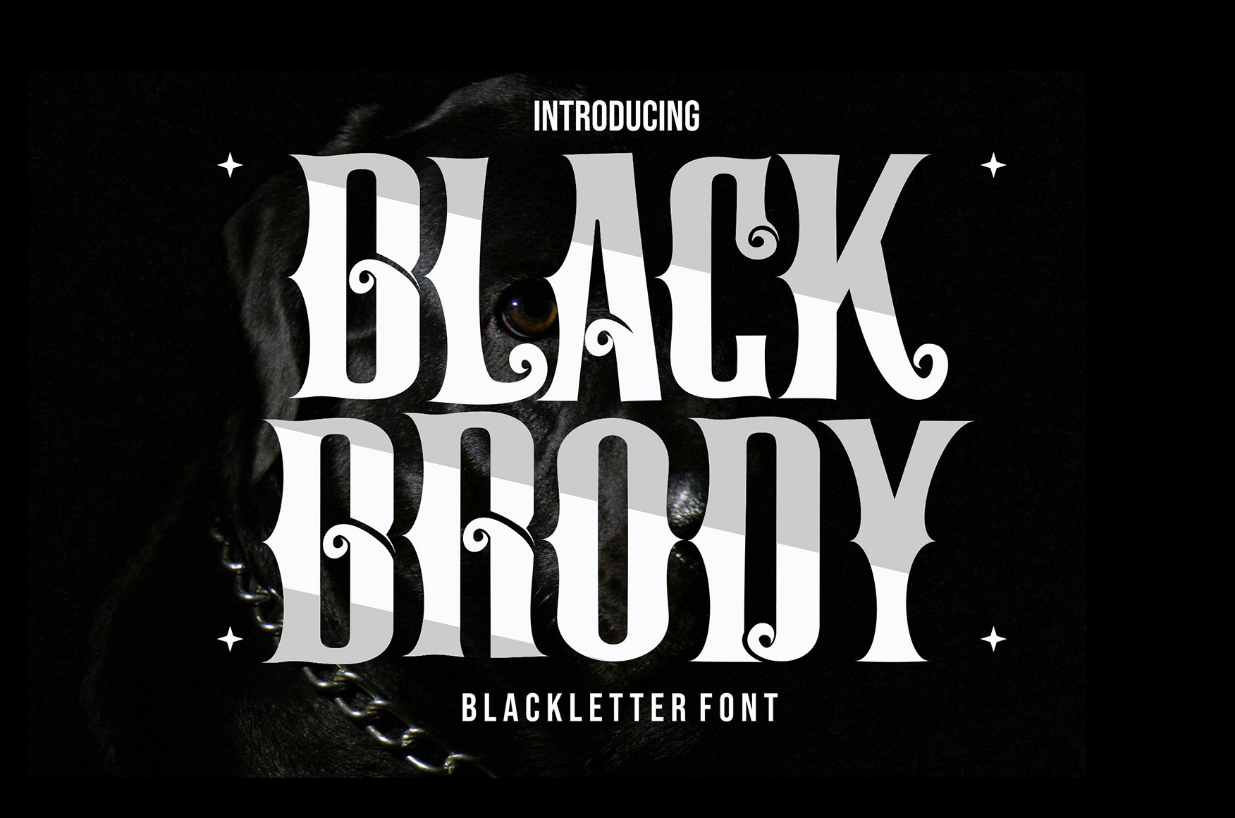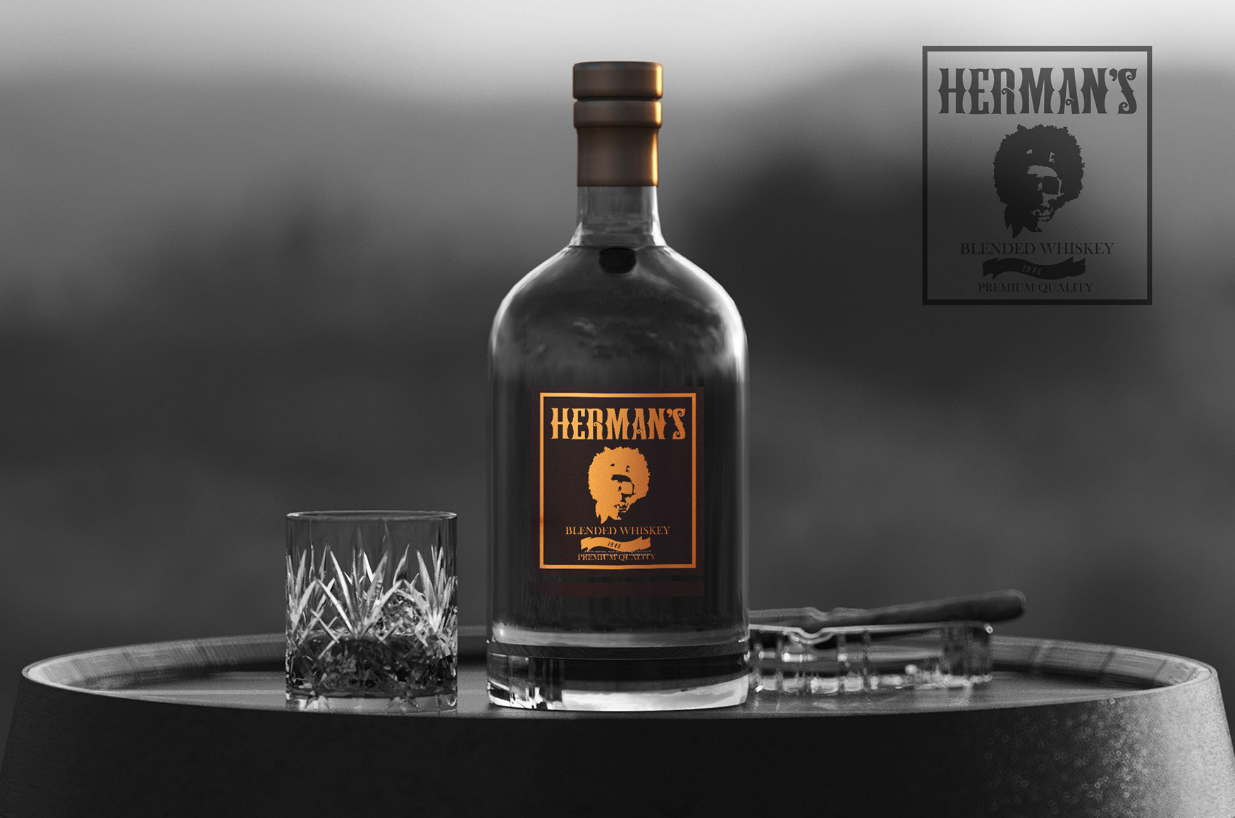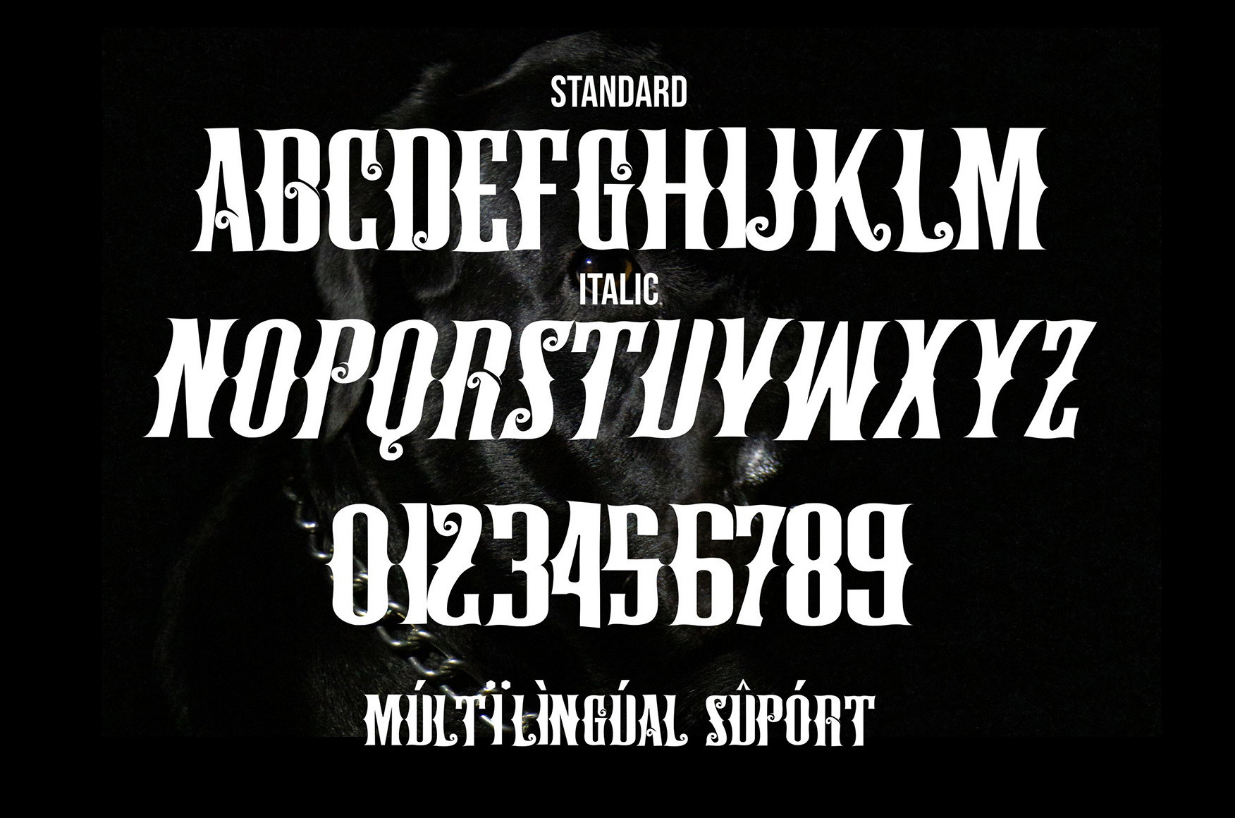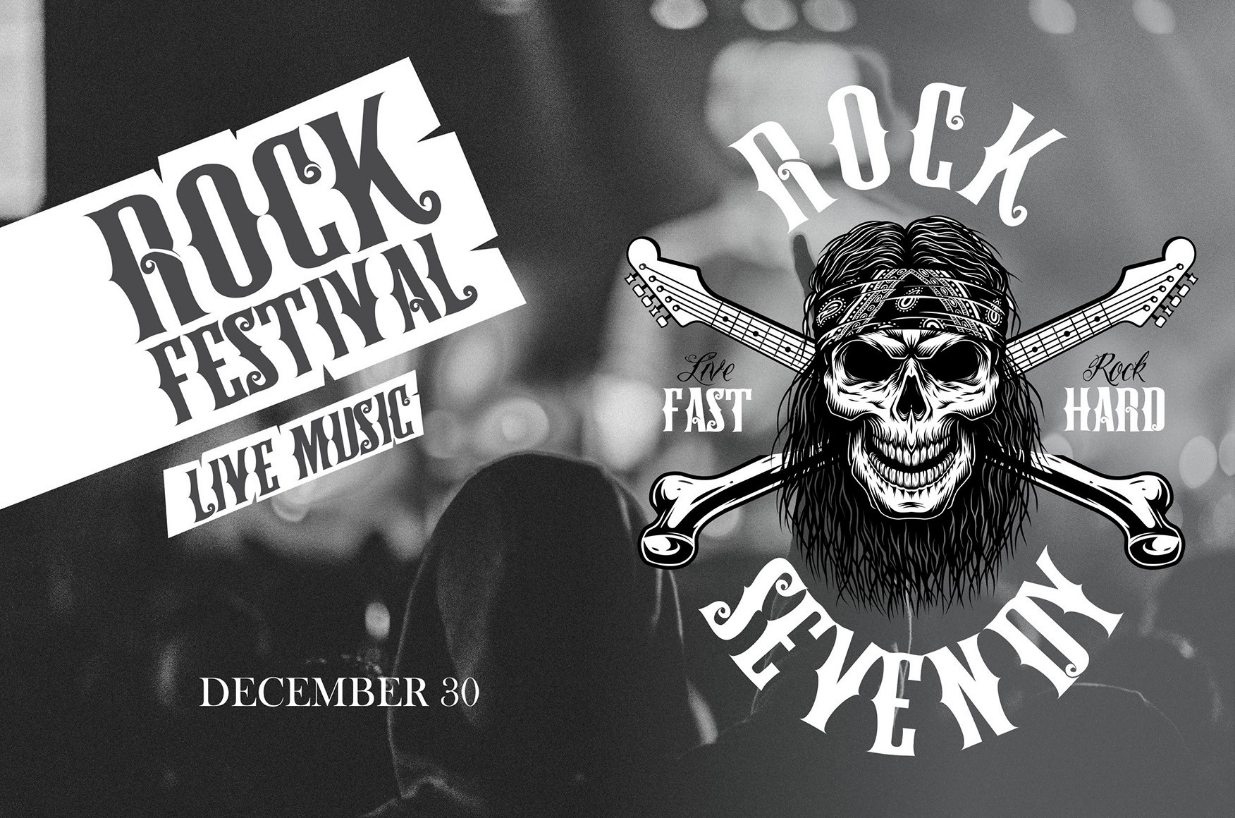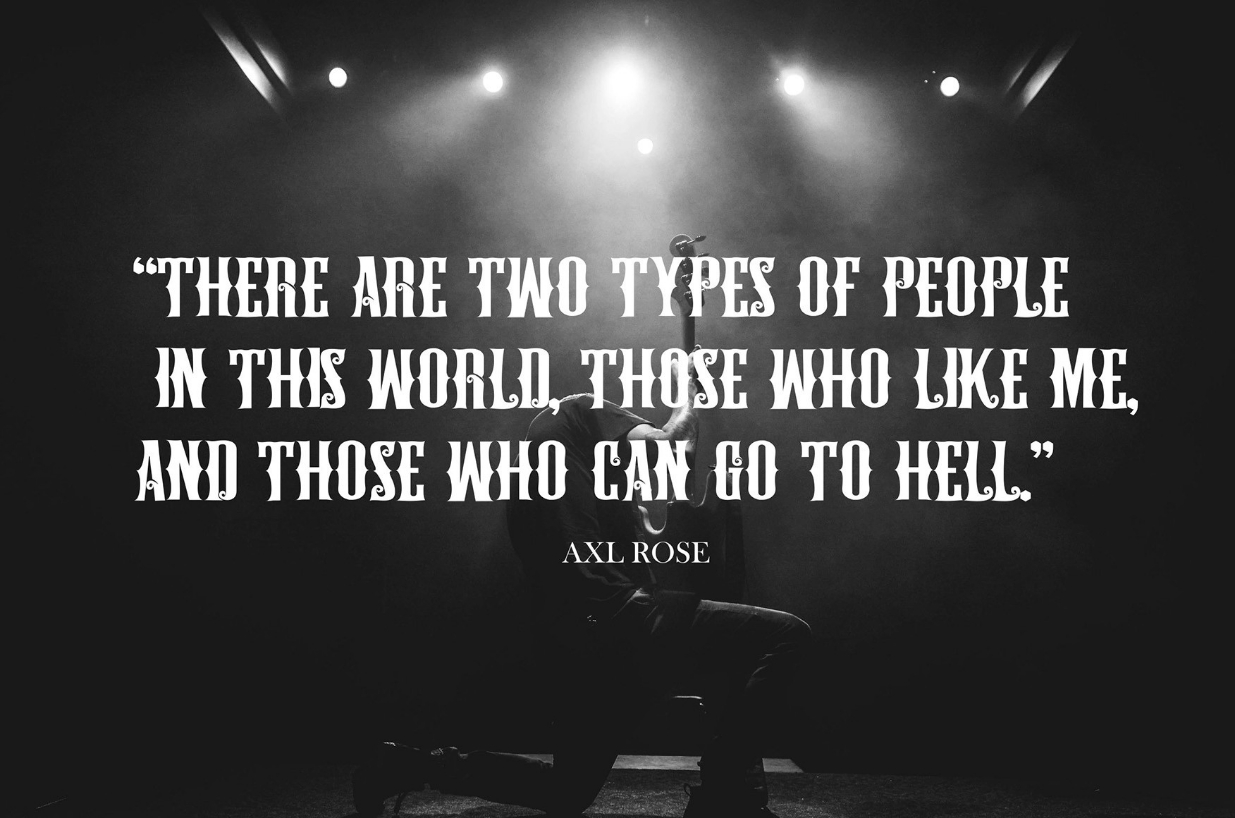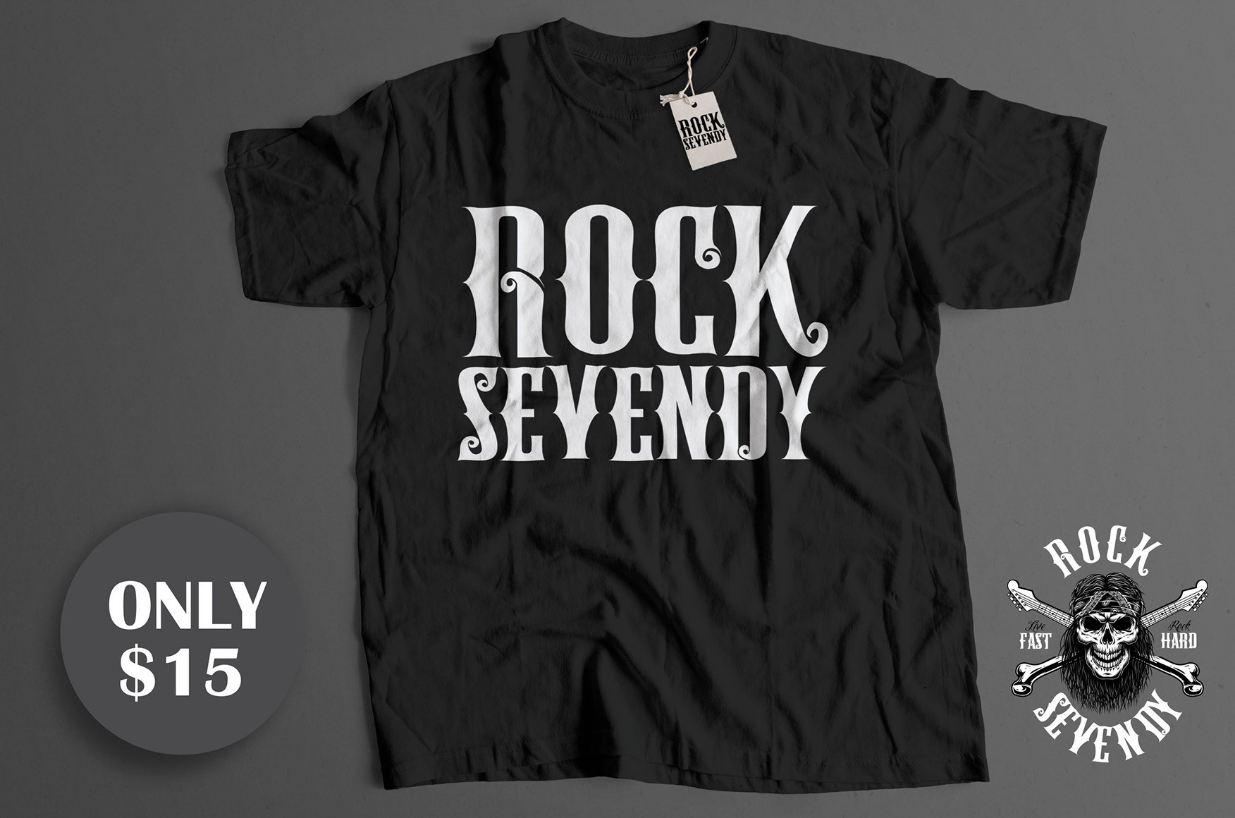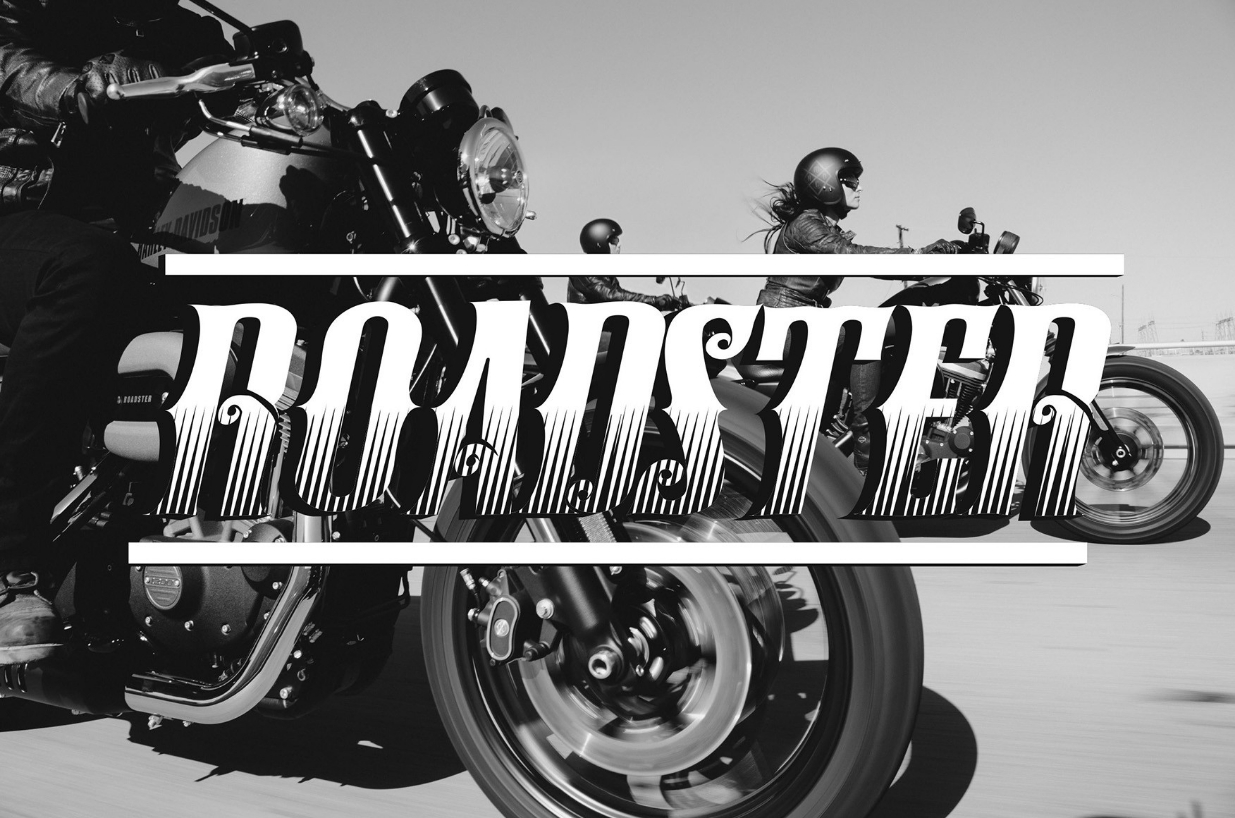
Black Brody Font
About Black Brody Font
Black Brody is a cool and unique blackletter font made with original and assertive letters. It is perfect for tattoo designs, logo studio tattoos, shirt designs, posters, branding, and so much more.